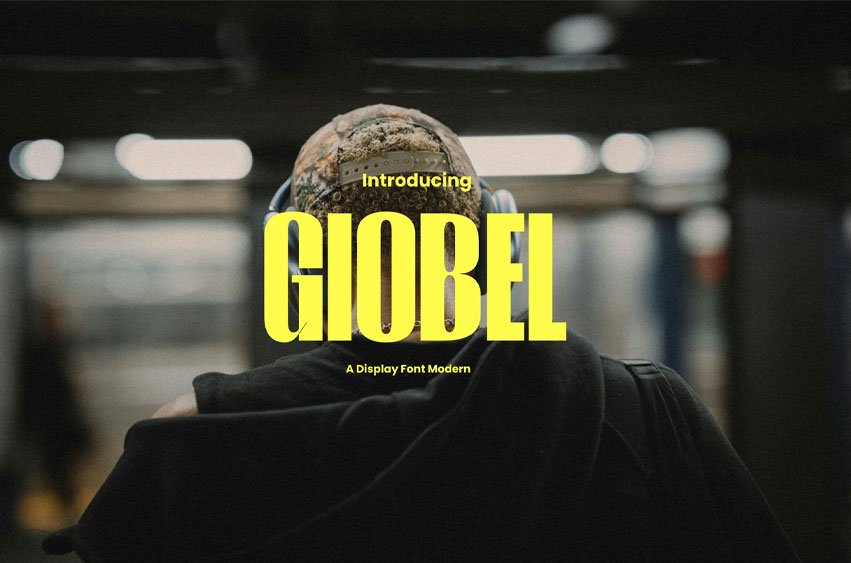
Giobel Font
Giobel Font is a modern display font that stands out with its bold, condensed, and striking letterforms.
Designed to capture attention instantly, it features clean lines and a strong visual presence, making it perfect for headlines, posters, branding, and contemporary design projects. Its tall proportions and minimalistic style give it a sleek and urban feel, ideal for conveying confidence, creativity, and modern aesthetics.